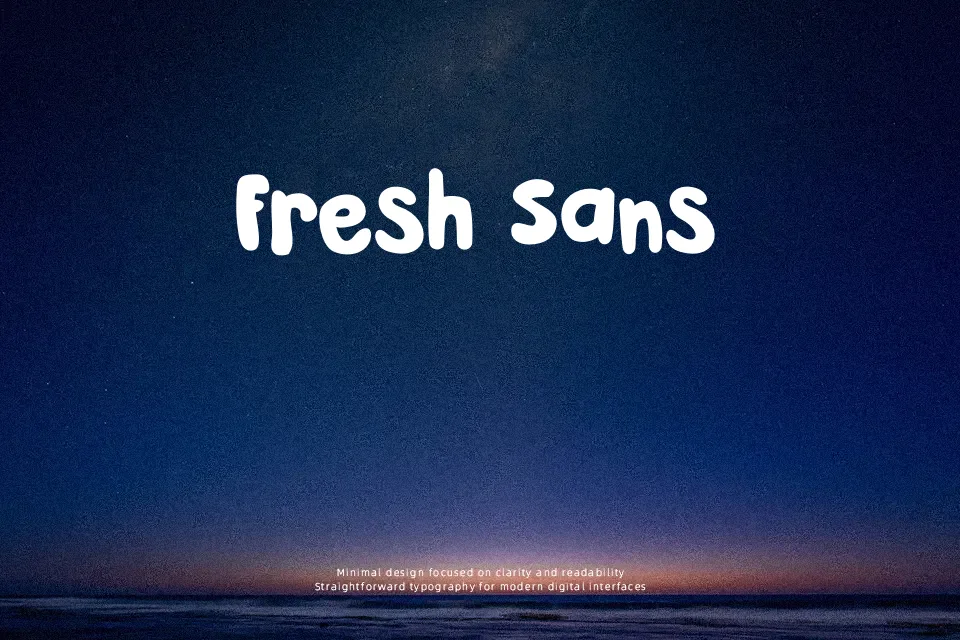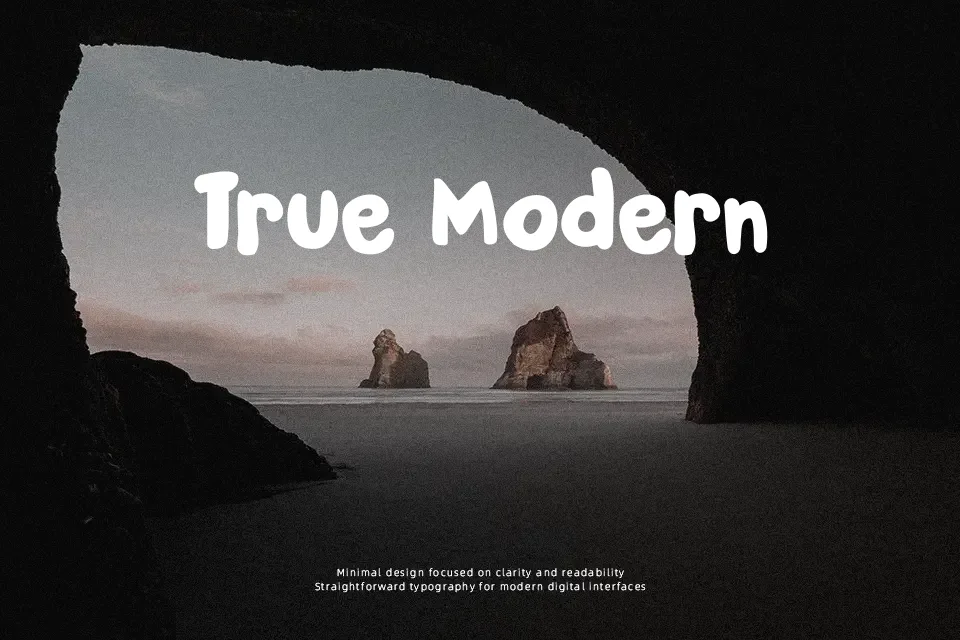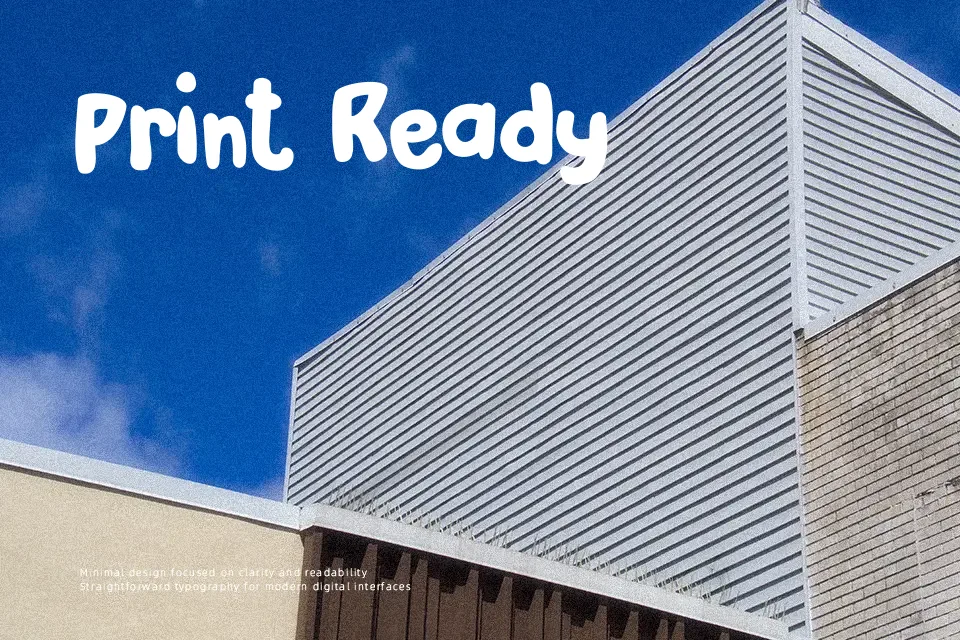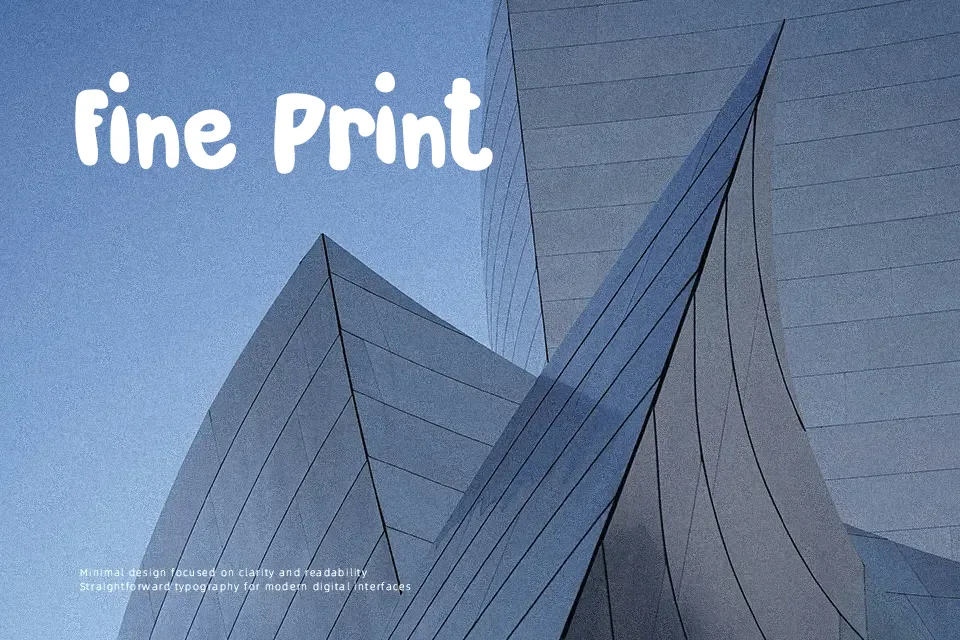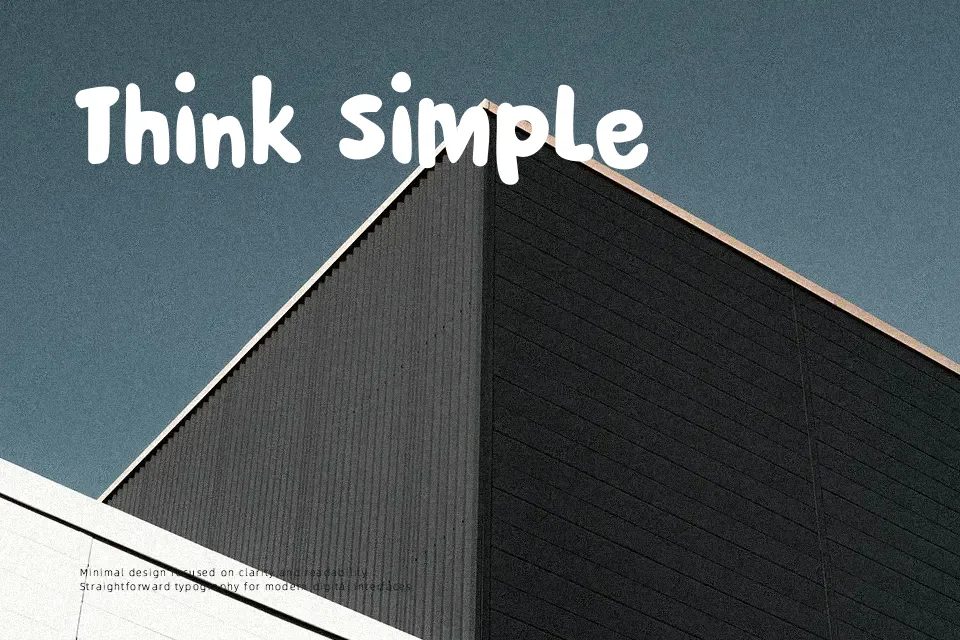
DK Pardesi Font
Designed by David Kerkhoff
DK Pardesi Font has a thick, rounded build with compact spacing, blunt terminals, and a slightly uneven cartoon rhythm that keeps it lively without looking messy. The letterforms feel hand-drawn but controlled, which gives it a friendly decorative voice rather than a rough comic look. It reads best when you want a headline to feel cheerful, loud, and a little quirky, such as snack packaging, children’s event posters, or playful social graphics. It holds attention well in short words. For longer copy, though, the heavy structure starts to crowd itself, so it is less convincing in body text, polished corporate work, or interfaces that need a cleaner tone.
kids posters,playful packaging,short headlines,party invitations
body text,formal branding,dense UI labels,long editorial copy
Perfect for headline, invitation, and kids, with a bold and cartoon style.